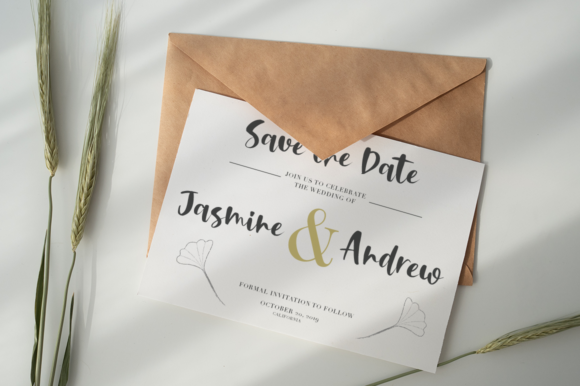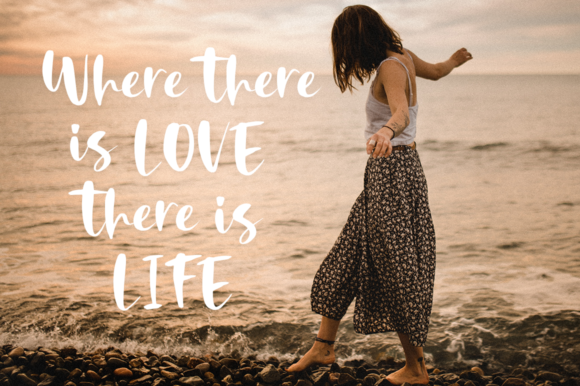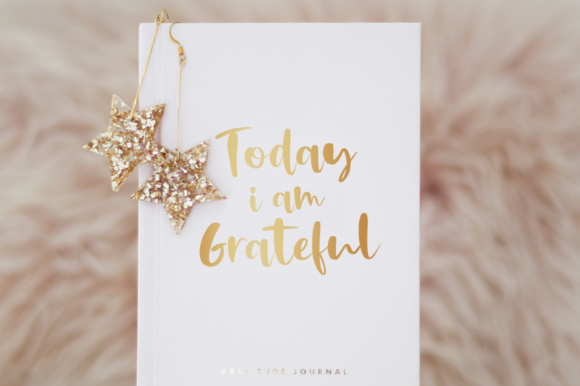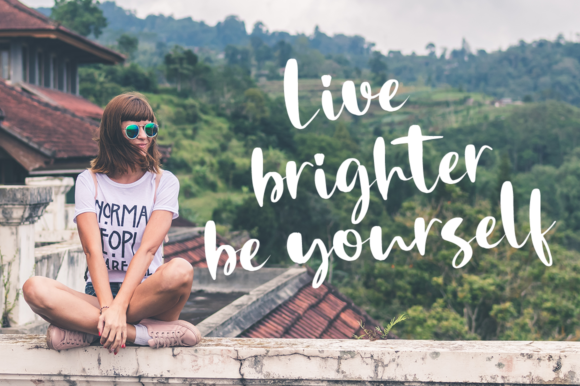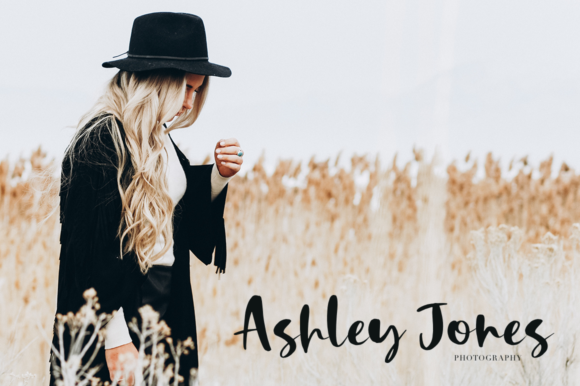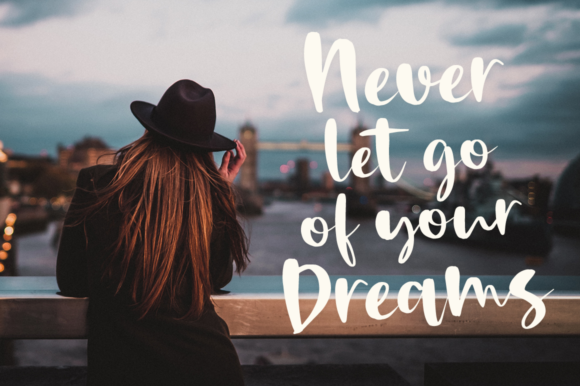
The Evelyn Font: A Cute and Bold Script with an Authentic Vibe
I’ll never forget the moment I stumbled upon the Evelyn font while working on a branding project for a trendy boutique. I was on a mission to find the perfect script font that would capture the essence of the brand – modern, elegant, and playful. After hours of scouring through font libraries, I finally found Evelyn, and it was love at first sight! ✨ In this article, I’ll share my experience with this beautiful font, its features, and how to make the most of it in your designs.
An Honest Review of Evelyn Font
What I Love About Evelyn Font
• ✨ Unique and Authentic Vibe: Evelyn has a distinct, hand-crafted feel that sets it apart from other script fonts.
• ✅ Modern Elegance: The font’s clean lines and subtle flair make it perfect for modern designs that require a touch of sophistication.
• 💃 Versatility: Evelyn works well for both digital and print projects, from social media graphics to branding materials and packaging.
While Evelyn is an excellent font, it’s not without its quirks. ⚠️ Here are a few things to keep in mind:
• 🤔 Limited Ligatures: Evelyn has a limited set of ligatures, which may not be ideal for designs that require extensive use of connected letters.
• ⚠️ Not Suitable for Body Text: Due to its script nature, Evelyn is best used for headlines, titles, or short paragraphs, but not for lengthy body text.
The Backstory of Evelyn Font
Evelyn was designed by a talented type designer who aimed to create a font that would capture the essence of modern elegance. 💡 The designer’s inspiration came from classic script fonts, with a twist of modernity and playfulness. The result is a unique and authentic font that’s perfect for creative projects.
Font Name Evelyn Font
Author Pasha Larin
Q: What is the best way to use Evelyn font?
A: Evelyn is best used for headlines, titles, or short paragraphs. It’s perfect for branding materials, social media graphics, and packaging designs.
Q: Is Evelyn font suitable for body text?
A: No, Evelyn font is not suitable for lengthy body text due to its script nature. It’s best used for short paragraphs or headlines.